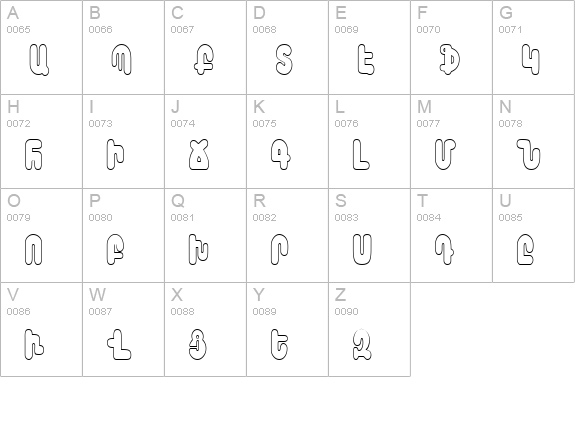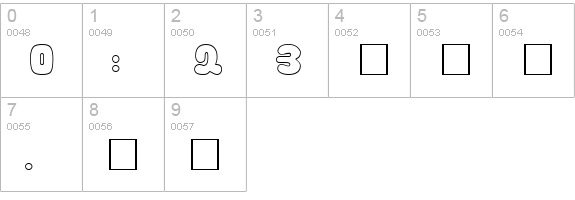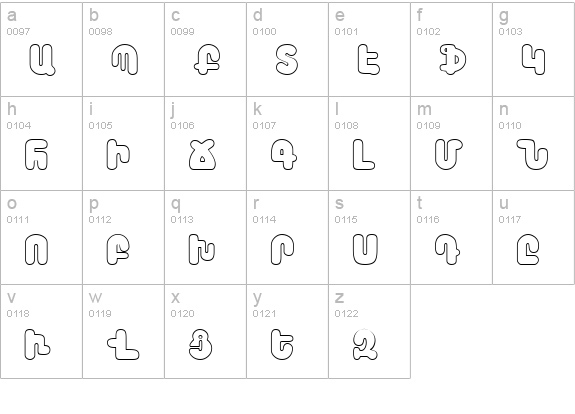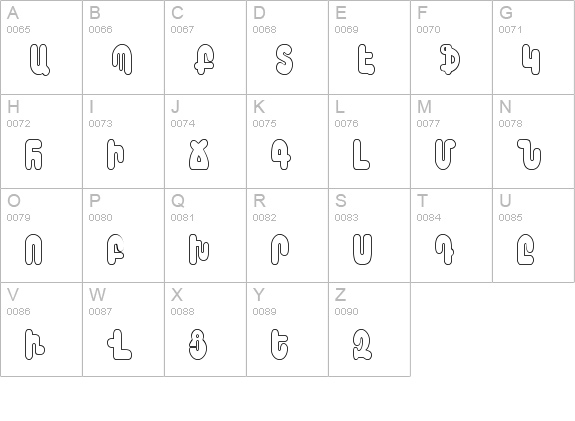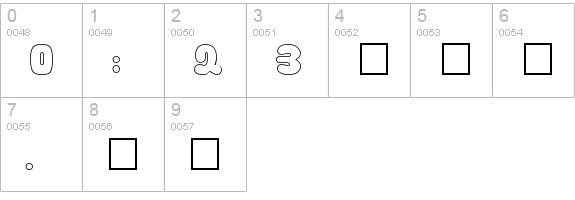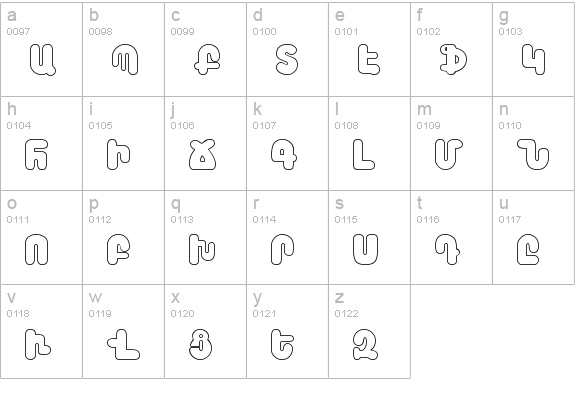
Arax-Barab Font Details
Arax-Barab font is a stunning display typeface that exudes elegance and sophistication. With its intricate details and unique design, this font is sure to make your projects stand out. The flowing curves and sharp angles create a harmonious balance that is both eye-catching and pleasing to the eye. Whether you are designing a logo, poster, or website, Arax-Barab font will bring a touch of class to your work. The best part? Arax-Barab font is available for free download at FontsMarket.com. Simply visit the website to get your hands on this beautiful font and elevate your designs to the next level. Don't miss out on the opportunity to add this versatile and stylish font to your collection. Download Arax-Barab font today and let your creativity shine!